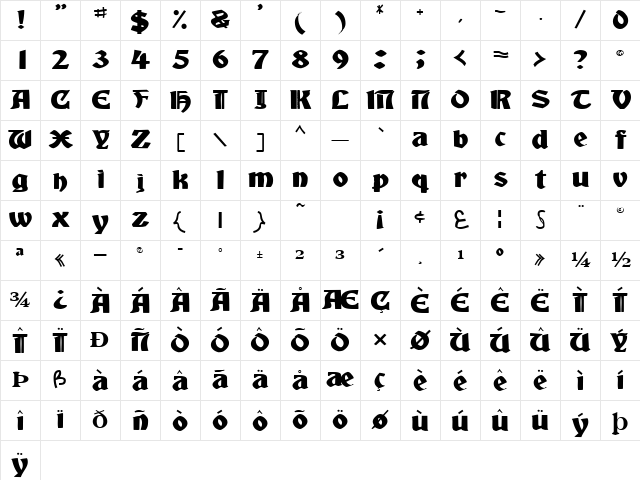
Complete Stake Regular glyph index. Displaying only characters natively supported by Stake Regular font.
Stake is a composed and adaptable typeface that performs quietly and consistently across a wide range of design contexts.